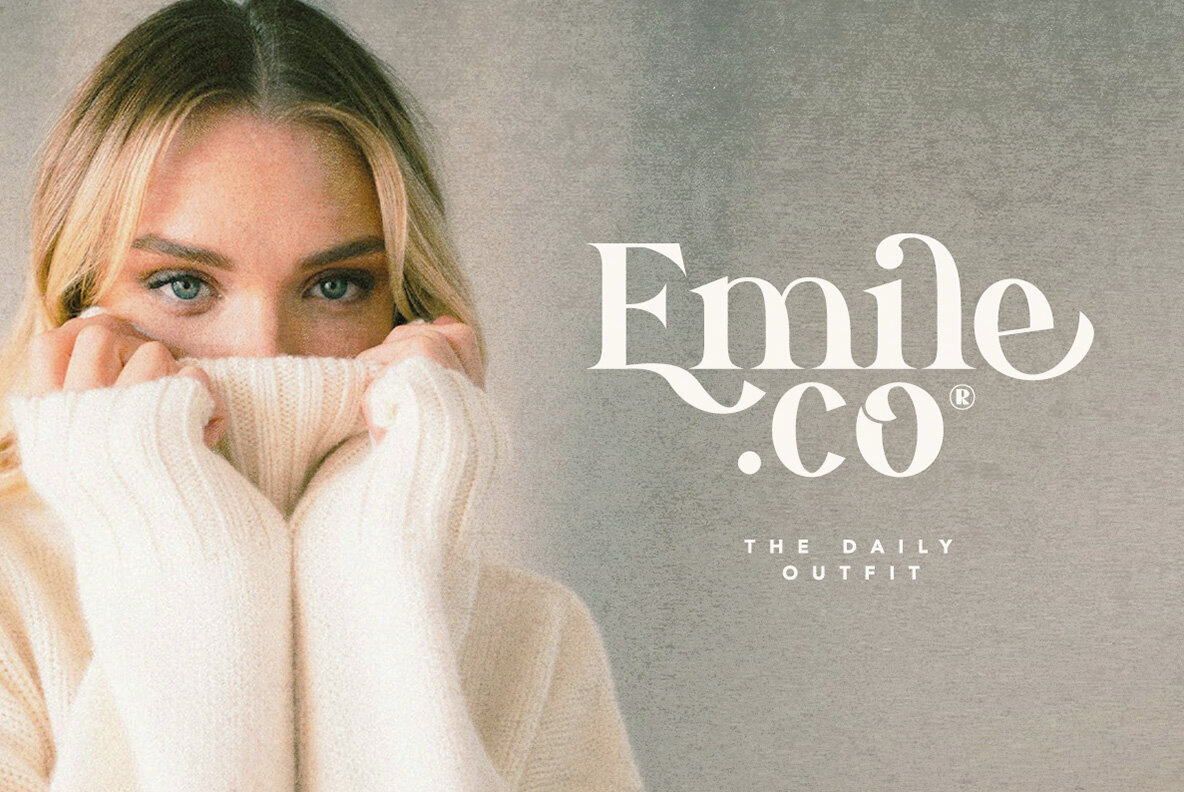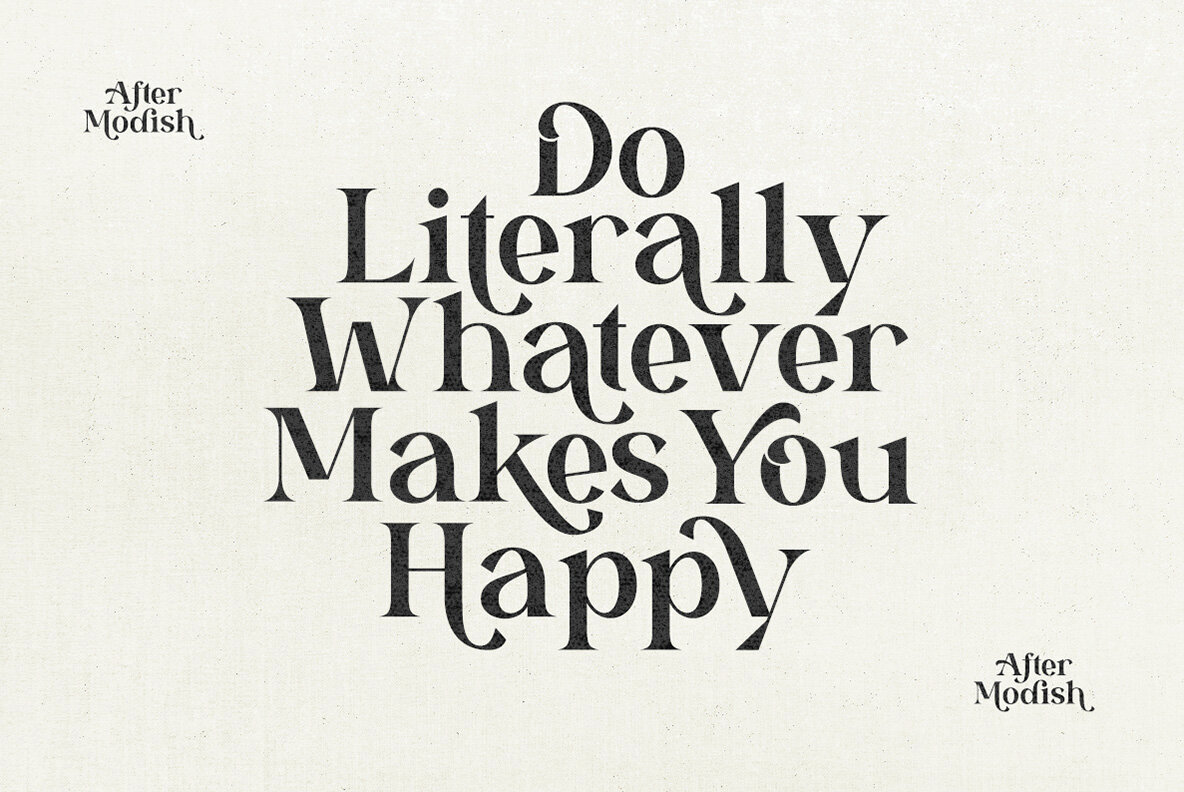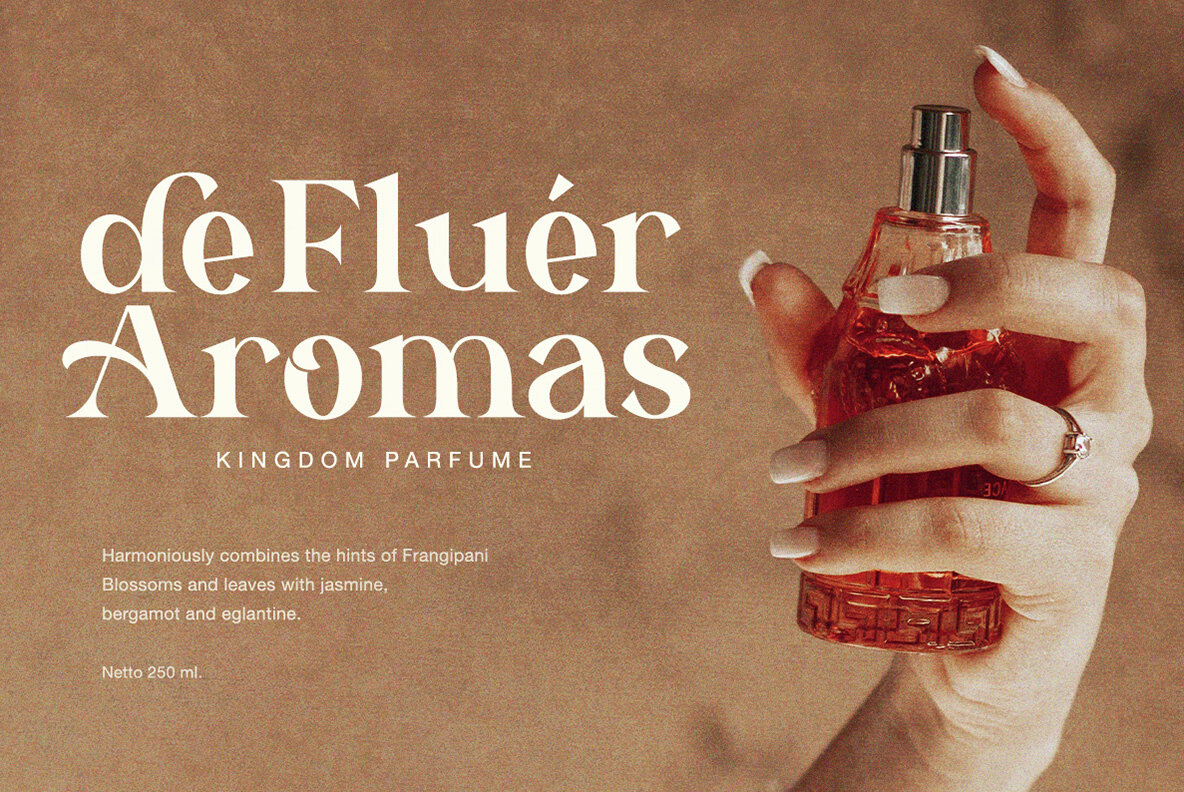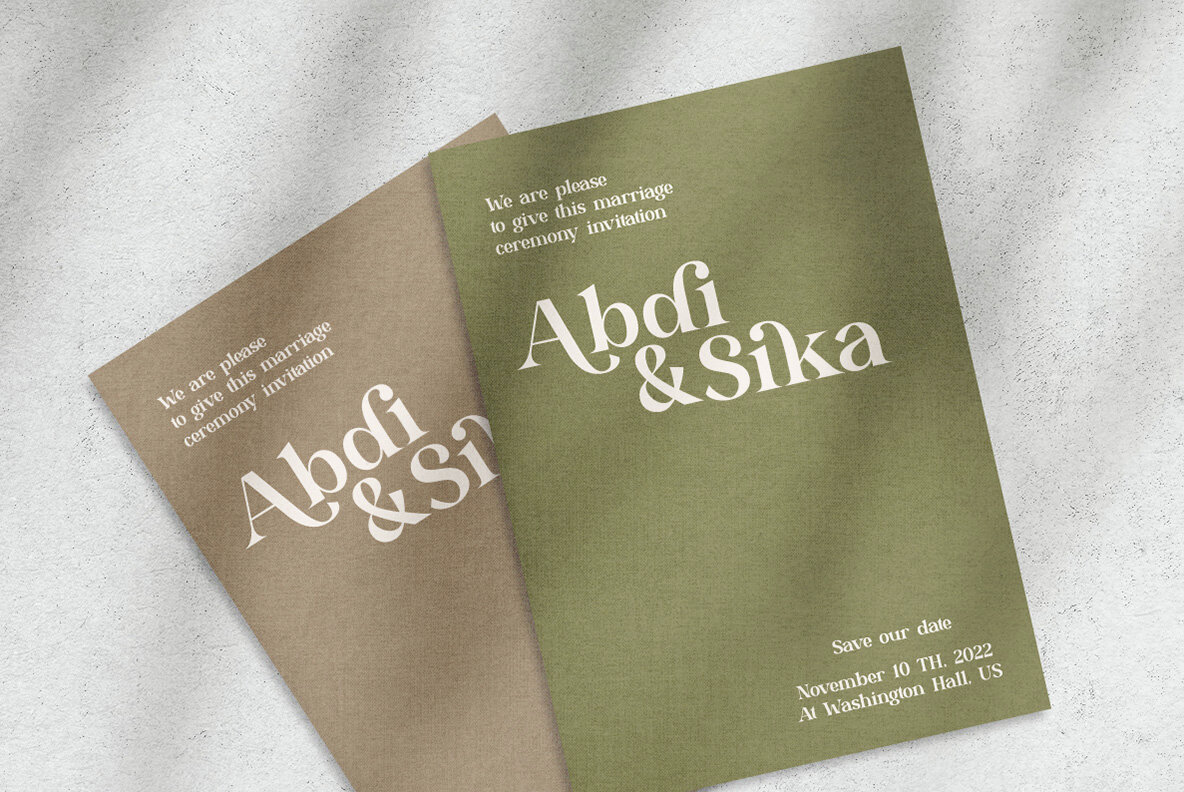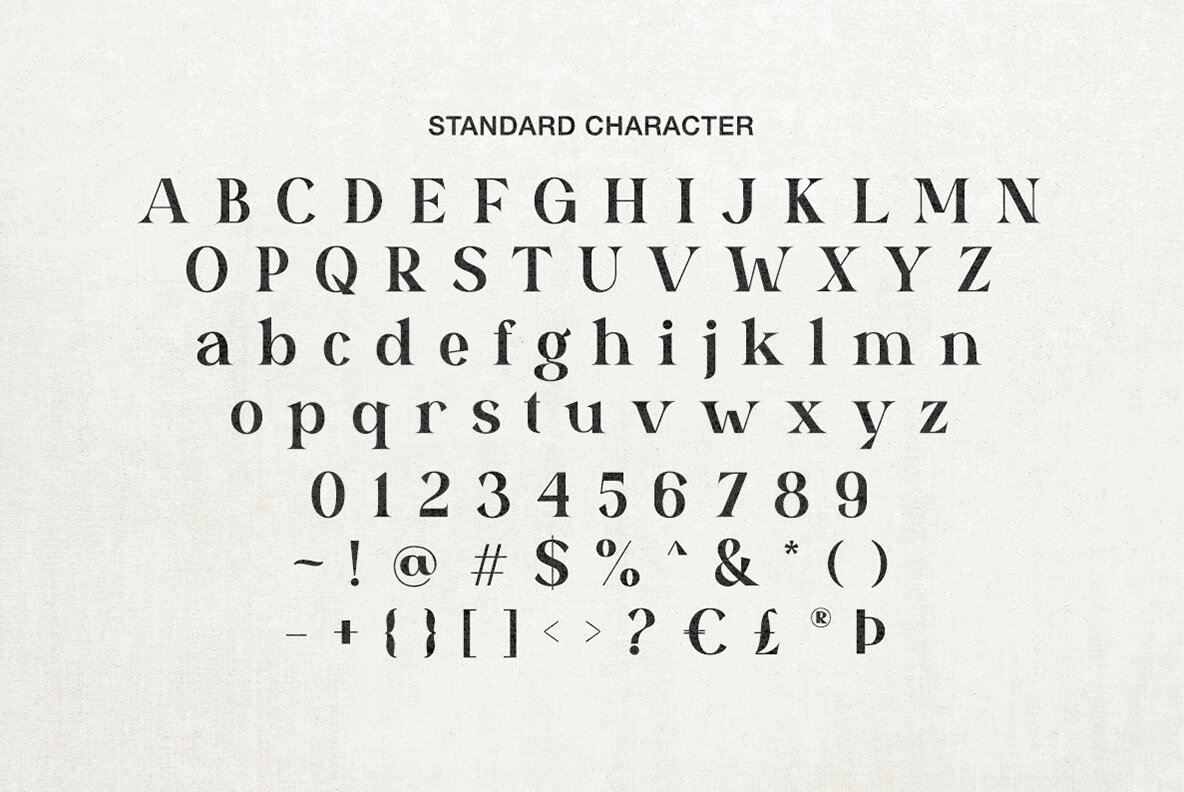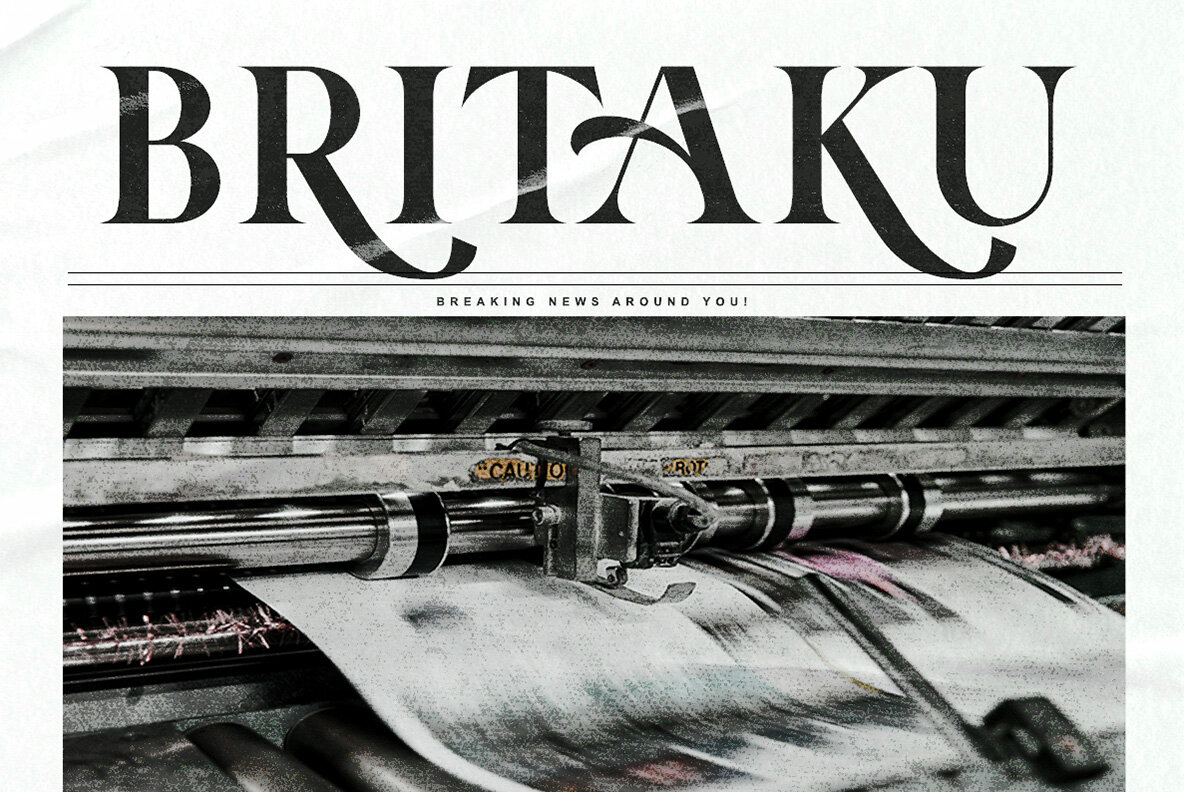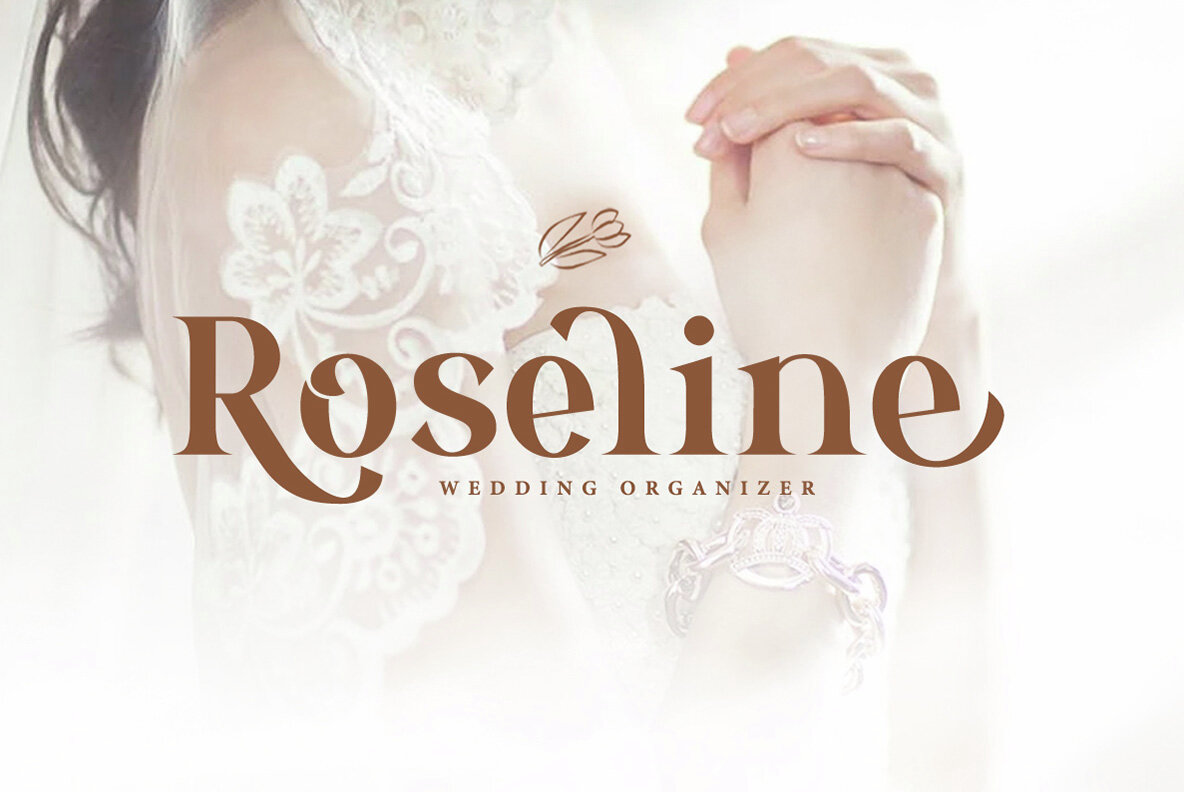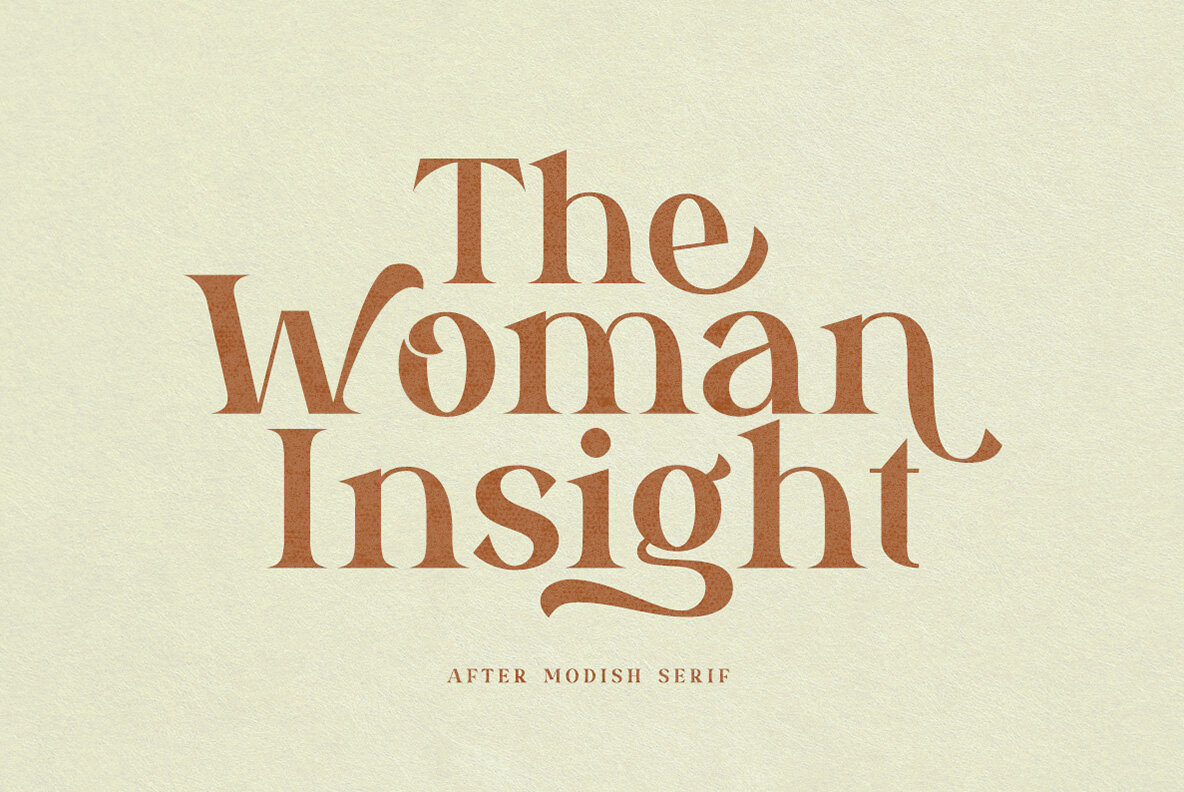
After Modish Font
After Modish is a striking modern bold serif featuring a variety of stylish ligatures and alternates. Perfect for numerous applications, it's ideal for branding, quotes, and wedding invitations. The multiple alternates let you create standout designs with ease.
This font supports multiple languages, making it versatile for international projects. Choose After Modish to bring a modern, sophisticated touch to your design work.